Fancy Text Generator: Find Your Aesthetic Cursive Font & Stand Out
What makes someone stop scrolling and notice you? Your unique vibe! But standard text can flatten your message. What if your words looked as stylish as your content? Uncover the secret to a scroll-stopping online presence with the right cursive and aesthetic fonts. How do I make my text cursive? It’s easy, and it’s the key to an authentic online identity. Dive into typography and discover how our free cursive generator effortlessly helps you find your perfect font!
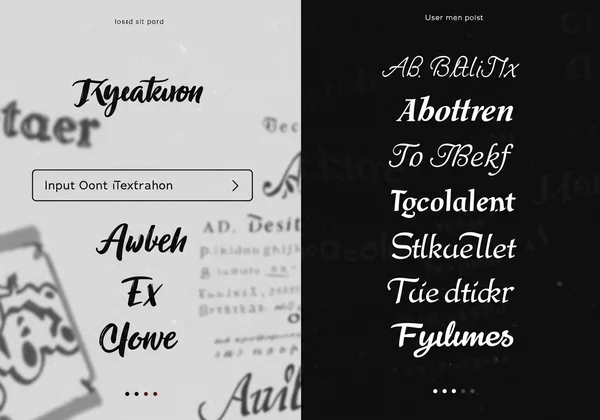
Decoding Your Digital Persona: The Power of Font Aesthetic
Your digital presence is your personal brand, and every detail contributes to the story you tell. While you carefully curate images and craft witty captions, the font aesthetic you choose is a powerful, often overlooked, tool. It’s the silent messenger that conveys mood, personality, and tone before a single word is even read. A font can be playful, elegant, bold, or mysterious—it’s the visual voice of your text.
What is a "Vibe" and Why Does Your Text Need One?
A "vibe" is the overall feeling or atmosphere you create online. It’s a mix of your interests, style, and how you express yourself. Giving your text a vibe means aligning its appearance with your personal brand. Using a generic font is like speaking in a monotone voice; it gets the message across, but it lacks personality. By choosing a specific font, you infuse your text with emotion and intent, creating a more cohesive and memorable personal style. This ensures your digital persona feels authentic and complete, from your profile picture down to your comment replies.
Matching Cursive Fonts to Your Unique Personal Style
Finding the right font is an act of self-expression. Are you adventurous and bold? A thick, dynamic script might be your perfect match. Are you more reserved and thoughtful? A delicate, clean cursive could better represent your personality. Think about the adjectives you’d use to describe yourself—charming, edgy, minimalist, whimsical—and look for cursive fonts that evoke those same feelings. The goal isn't just to find a pretty font; it's to find a font that feels like an extension of you. Our cursive generator tool is designed to help you explore different styles and find the one that clicks.
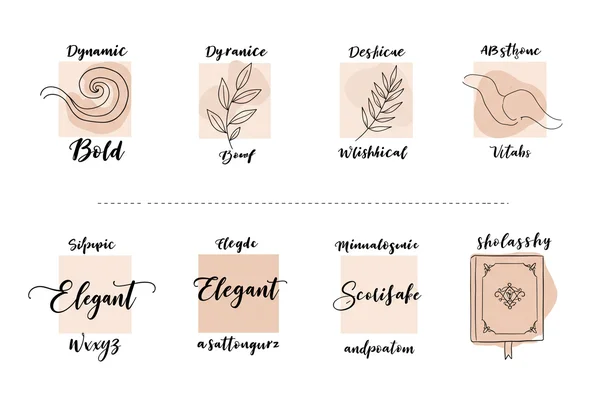
Top Aesthetic Vibes: Cursive Fonts for Every Style
Our cursive text generator offers stunning variety! You’re no longer limited to the default options on social media. Instead, you can tap into countless styles to perfectly match any aesthetic you’re channeling. Here are some of the most popular vibes right now and the fonts that bring them to life.
Cottagecore Charm: Whimsical & Hand-Lettered Fonts
Imagine a sun-drenched meadow, fresh-baked bread, and handcrafted art. The Cottagecore aesthetic is all about warmth, nature, and a touch of nostalgia. The fonts that match this vibe feel organic and personal. Look for styles that mimic real handwriting, with gentle loops and soft imperfections. These whimsical & hand-lettered fonts add a layer of sincerity and charm to your text, making your captions feel like a heartfelt note from a friend. They are perfect for blogs, Etsy shop descriptions, or Instagram posts featuring nature and crafts.
Y2K Throwback: Bold, Edgy & Digital-Cool Scripts
Get ready to party like it’s 1999! The Y2K aesthetic is back with its futuristic optimism, metallic sheen, and digital-inspired designs. This vibe calls for fonts that are confident and a little bit flashy. Think bold, edgy & digital-cool scripts with sharp angles, bubble letters, or a slightly pixelated feel. These fonts are perfect for making a statement on TikTok, in your gaming username, or for any content that has a retro-tech, cyber-glam feel. They grab attention and scream confidence.
Minimalist Chic: Clean, Elegant & Understated Cursive
For those who believe less is more, the minimalist aesthetic is all about sophistication and simplicity. This style favors clean lines, neutral colors, and uncluttered space. The corresponding fonts are just as refined. Choose clean, elegant & understated cursive with thin strokes, consistent spacing, and a graceful flow. These fonts don't shout; they whisper. They are ideal for professional portfolios, chic fashion posts, or anyone who wants to convey a sense of modern elegance. A fancy text generator makes it easy to find a script that is both beautiful and legible.
Dark Academia Depth: Classic, Ornate & Scholarly Lettering
Picture yourself in a historic library, surrounded by leather-bound books, classical art, and the scent of old paper. Dark Academia is an aesthetic rooted in literature, learning, and a touch of romantic melancholy. The fonts for this vibe are classic, ornate & scholarly lettering. Think traditional calligraphy, Gothic-inspired scripts, and fonts with intricate details that feel timeless and intellectual. These are perfect for poetry snippets, book review blogs, or creating an Instagram feed that feels like a page from a classic novel.
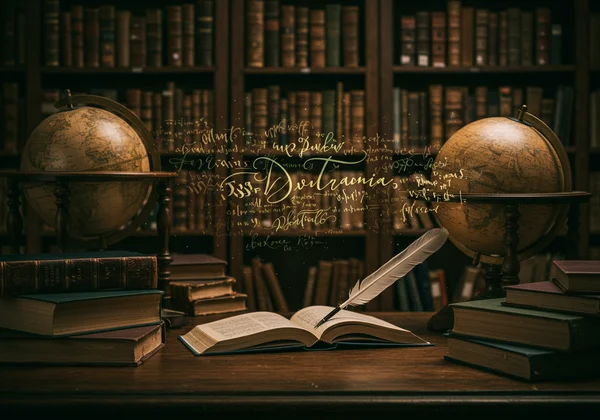
Elevate Your Instagram Aesthetic with Unique Cursive Fonts
Instagram is a visual platform, and your text is a key part of your overall Instagram aesthetic. A custom cursive font can be the secret ingredient that makes your profile unforgettable. It helps you stand out in a sea of sameness and creates a cohesive, professional look.
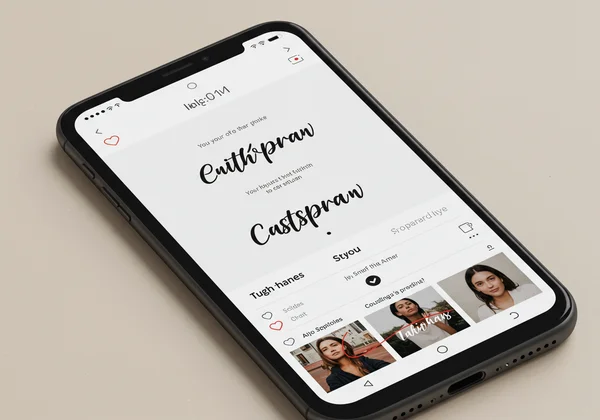
Can I copy and paste fonts generated by your tool?
Yes, absolutely! That's the core feature and main advantage of our tool. Every font style generated by our fancy text generator is designed for easy, one-click copying. Once you've created text you love, you can instantly copy and paste fonts wherever you need them, making it one of the quickest ways to beautify your digital content.